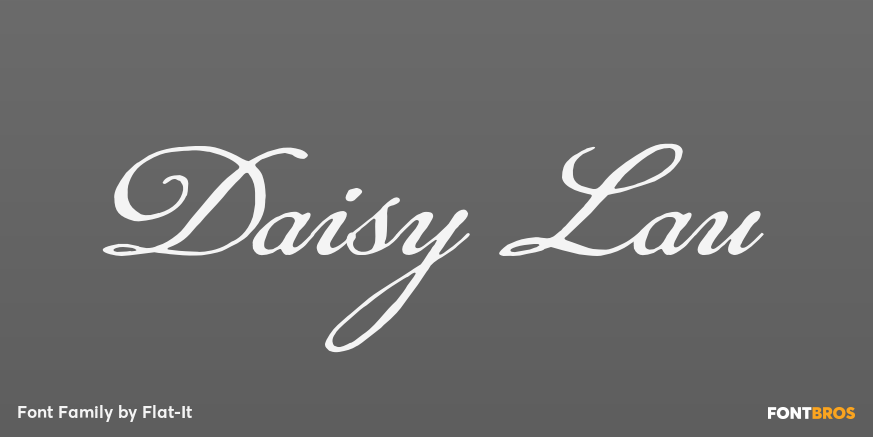
HomeFont BrosHandwrittenDaisy Lau HandwrittenScripts: CasualScripts: FormalHistorical Daisy Lau FacebookXPinterestWhatsApp 1 of 1 About Daisy Lau Based on Hongkong ladies? script in the 19th century. Inky texture gives realistic handwriting appearance.  DOWNLOAD ON FONT BROSThis font is sold and delivered by Font Bros. Font Canyon may earn a commission if you buy through this link. People also explored Rouge Marry Merry Font Akkardion Font Bosskuy Font Unione Font DoooLA Daisy Font Clover Font Demon Speed Font 232 0 TagsDaisy Lau Font Previous articleMozartNext articleMezzogiorno LEAVE A REPLY Cancel reply Comment: Please enter your comment! Name:* Please enter your name here Email:* You have entered an incorrect email address! Please enter your email address here Website: Save my name, email, and website in this browser for the next time I comment. Personal Use Free Bellarin Personal Use Free Read more about this font Nulshock Bold Personal Use Free Read more about this font Miracles Personal Use Free Read more about this font Good Times Personal Use Free Read more about this font BLOG Free Fonts Risk: Why Free Fonts Can Be Dangerous for Designers Free Fonts Risk: Why Free Fonts Can Be Dangerous for Designers Using free fonts is a common practice in web and graphic design. However, the... Fonts That Capture the Spirit of New York City How to Cut Any Font on Cricut: Convert a Font to SVG (Free) Where to Buy American Fonts Online in 2024